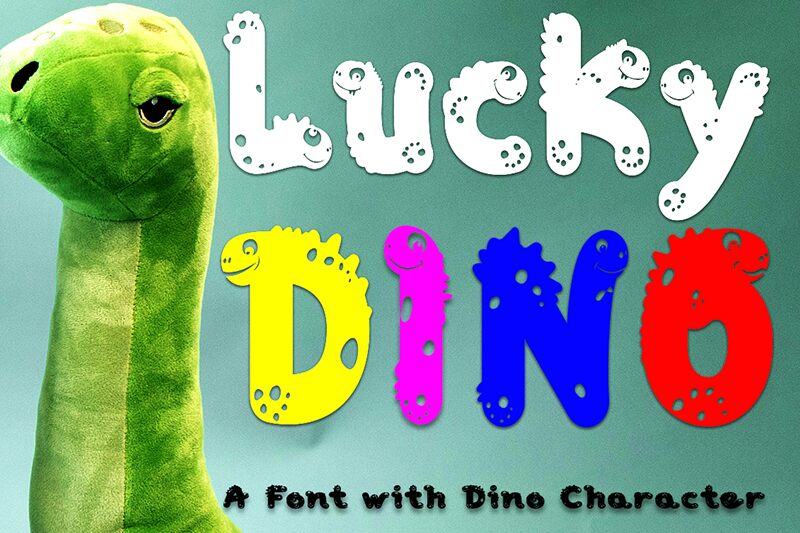
Lucky Dino is a bold, display font designed by Miftahul Arzaq of Arzaq's Studio. Its playful, cartoon style makes it perfect for projects aimed at children or those that require a touch of whimsy. The bold weight ensures that your message will stand out and leave an impact on your audience. Lucky Dino is suitable for a range of projects including logos, packaging design, posters, and more. Bring some fun into your designs with the Lucky Dino typeface!
Lucky Dino